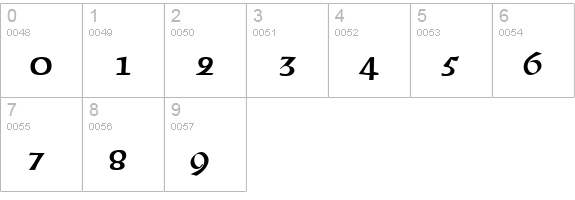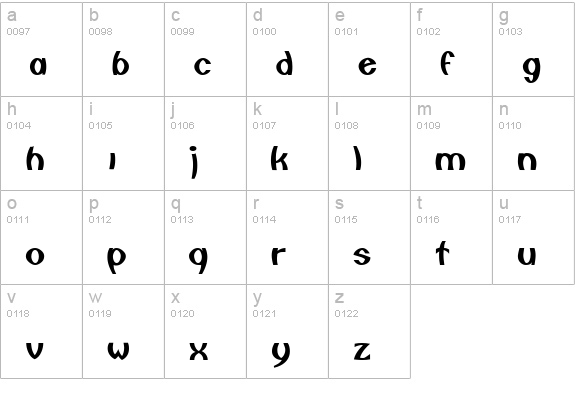
Comstare Font Details
Comstare is a modern and elegant font that exudes sophistication and style. With its clean lines and sleek design, Comstare is perfect for various design projects, from branding to editorial layouts. This versatile font is suitable for both headings and body text, making it a great choice for creating a cohesive and professional look. What sets Comstare apart is not only its timeless appeal but also the fact that it is available for free download at FontsMarket.com. This means that you can easily access this high-quality font without any cost, making it a valuable addition to your font collection. Whether you are a designer, blogger, or business owner, Comstare offers a seamless and hassle-free way to elevate your projects with its contemporary and refined aesthetic. Download Comstare today at FontsMarket.com and unleash the potential of this exceptional font in your next creative endeavor.